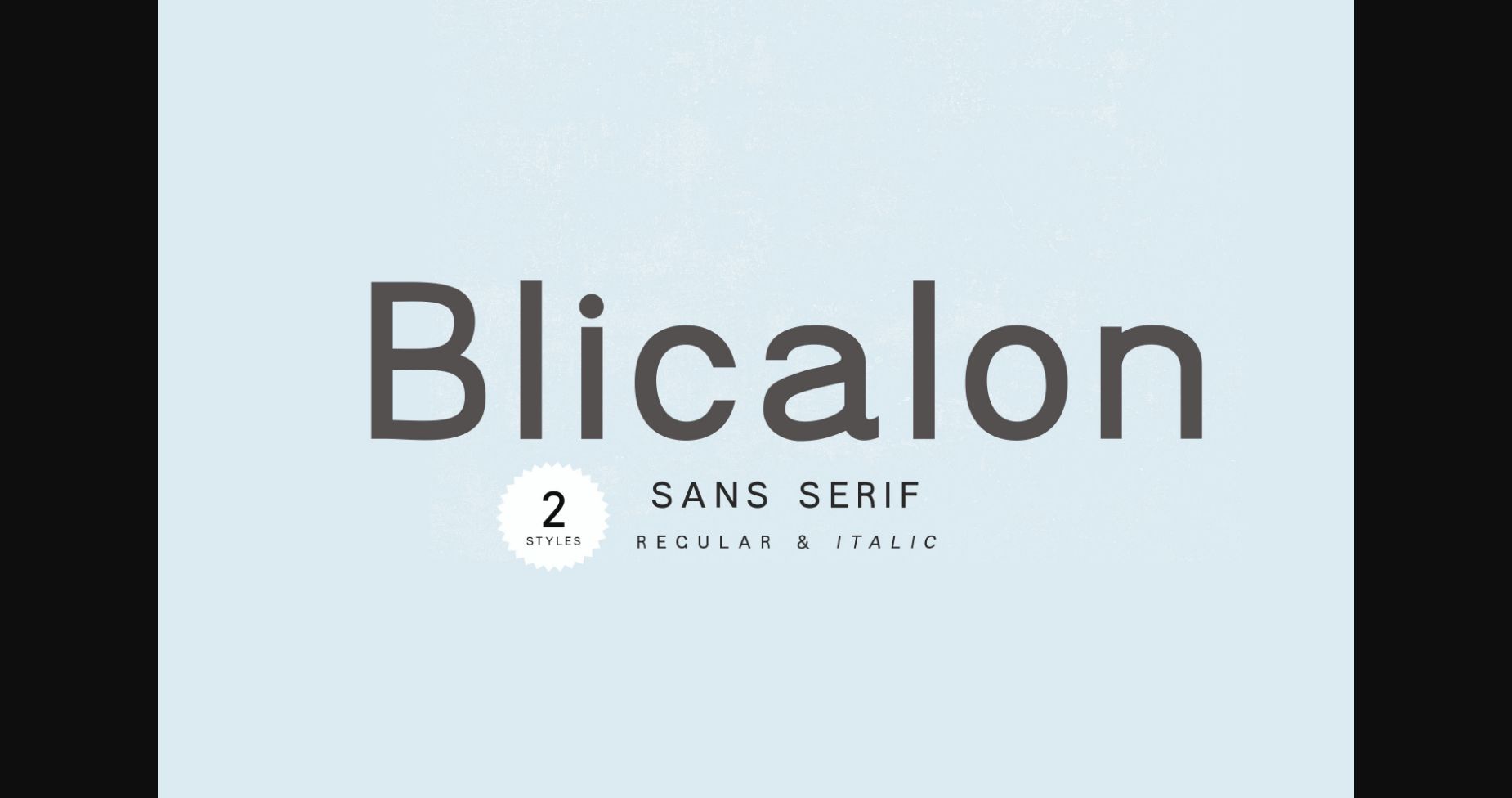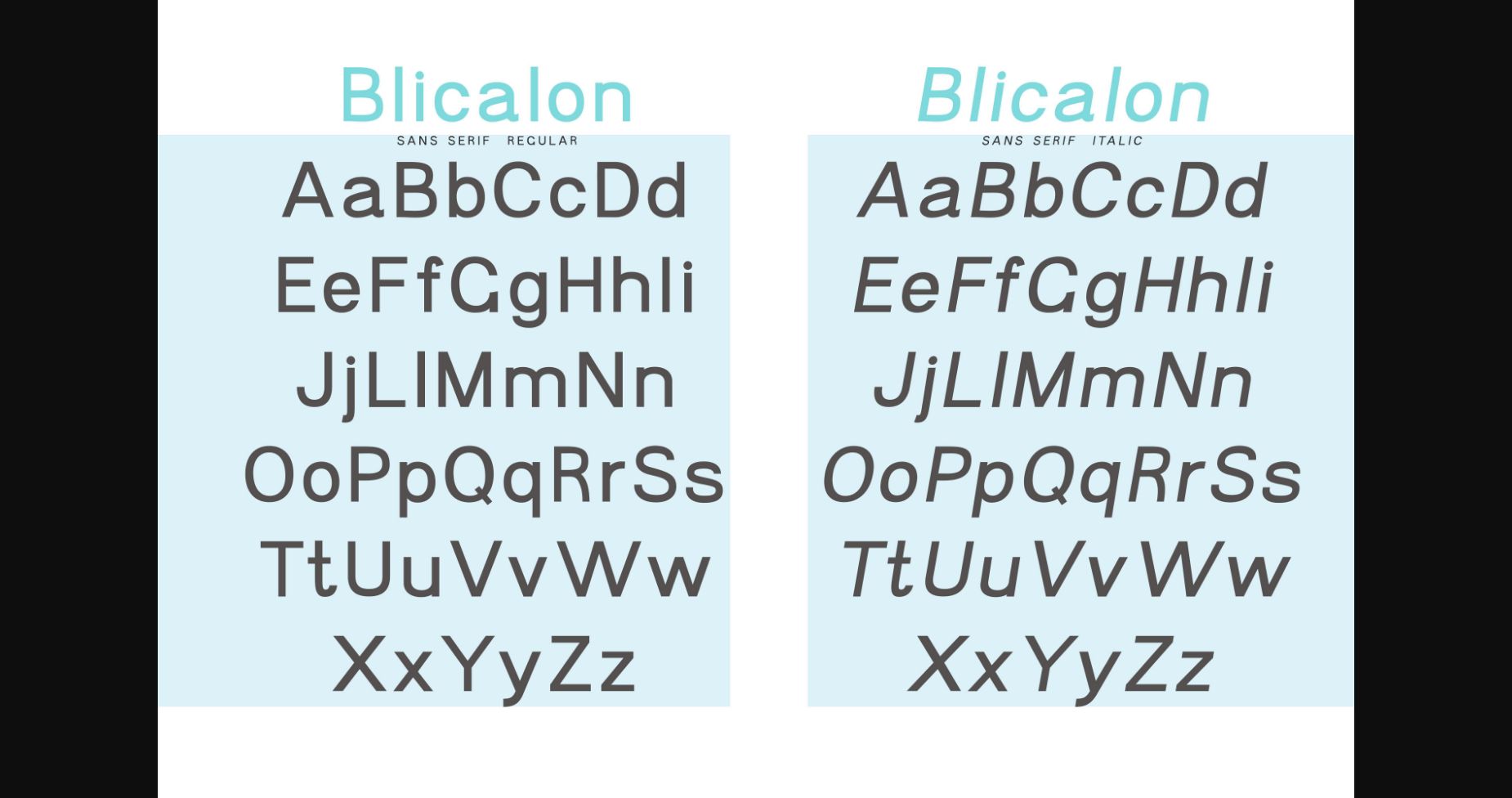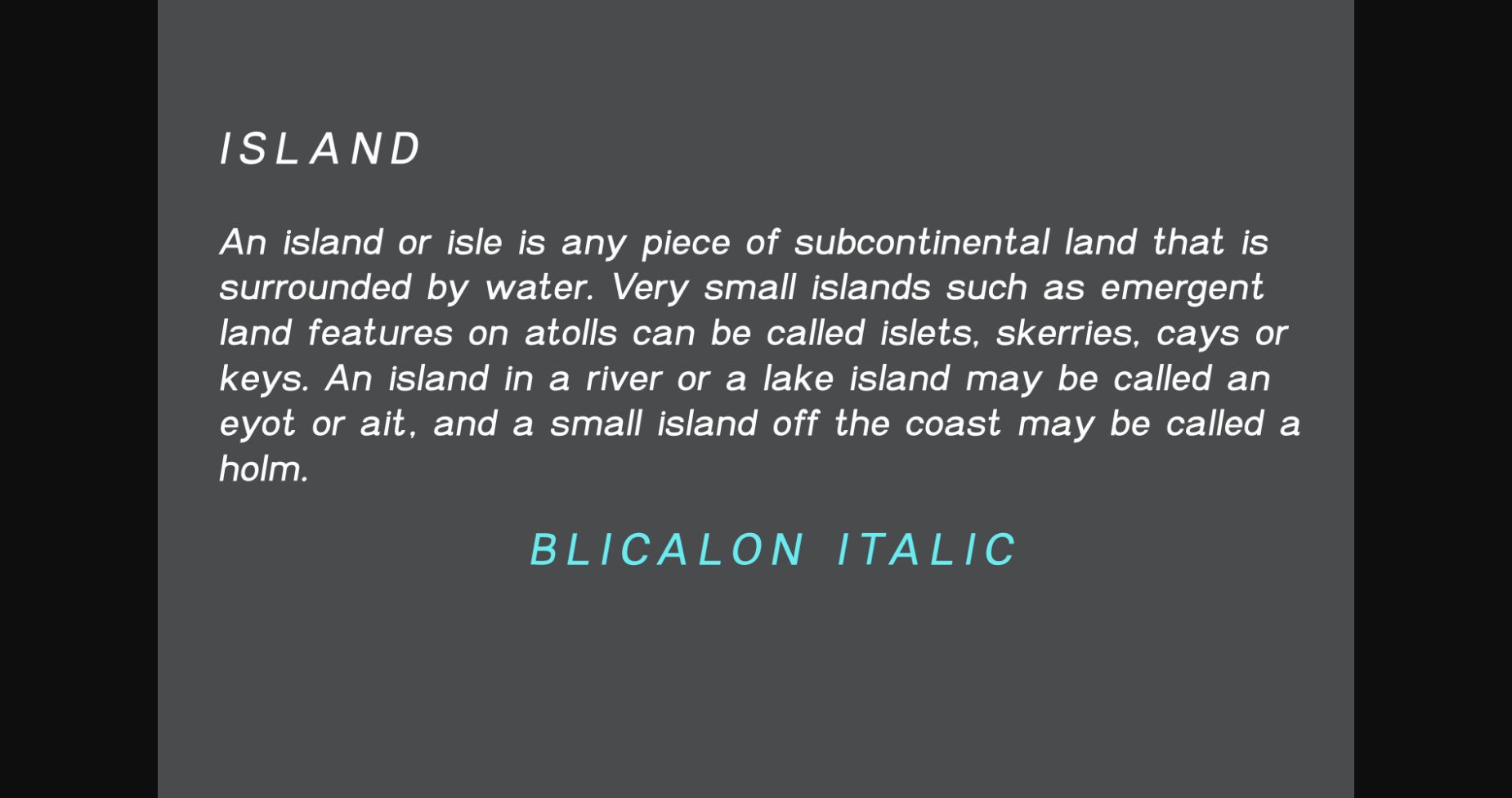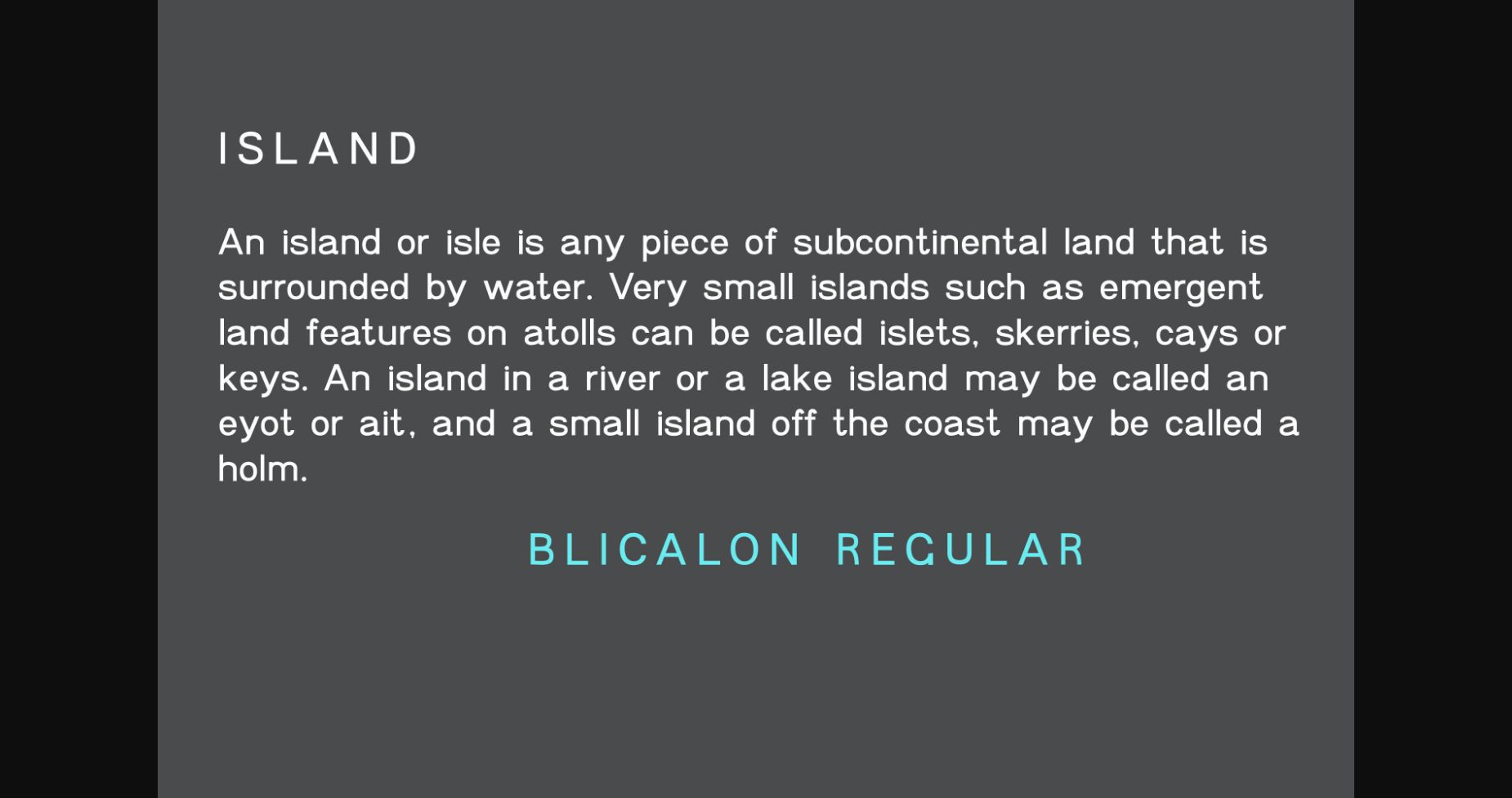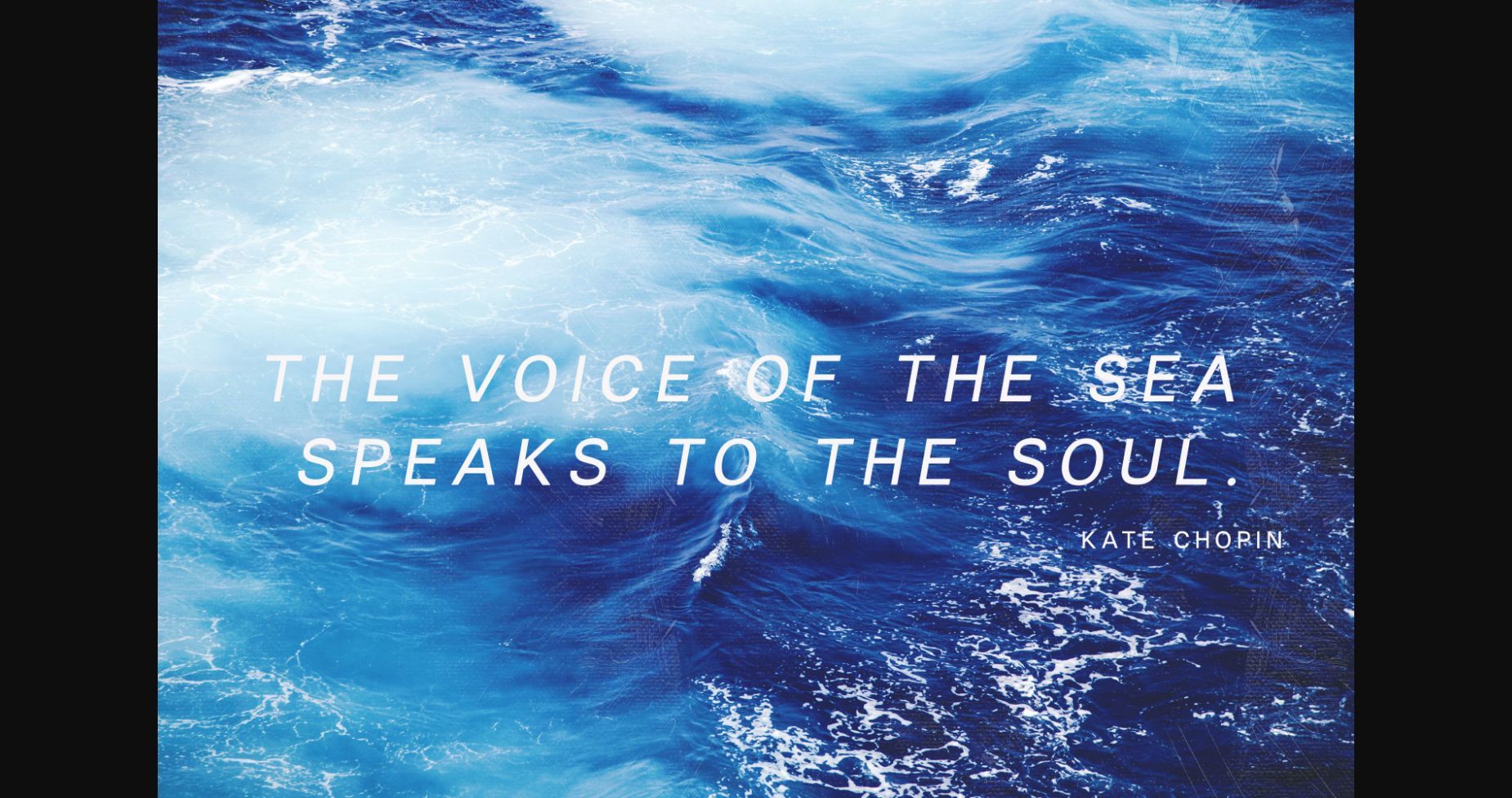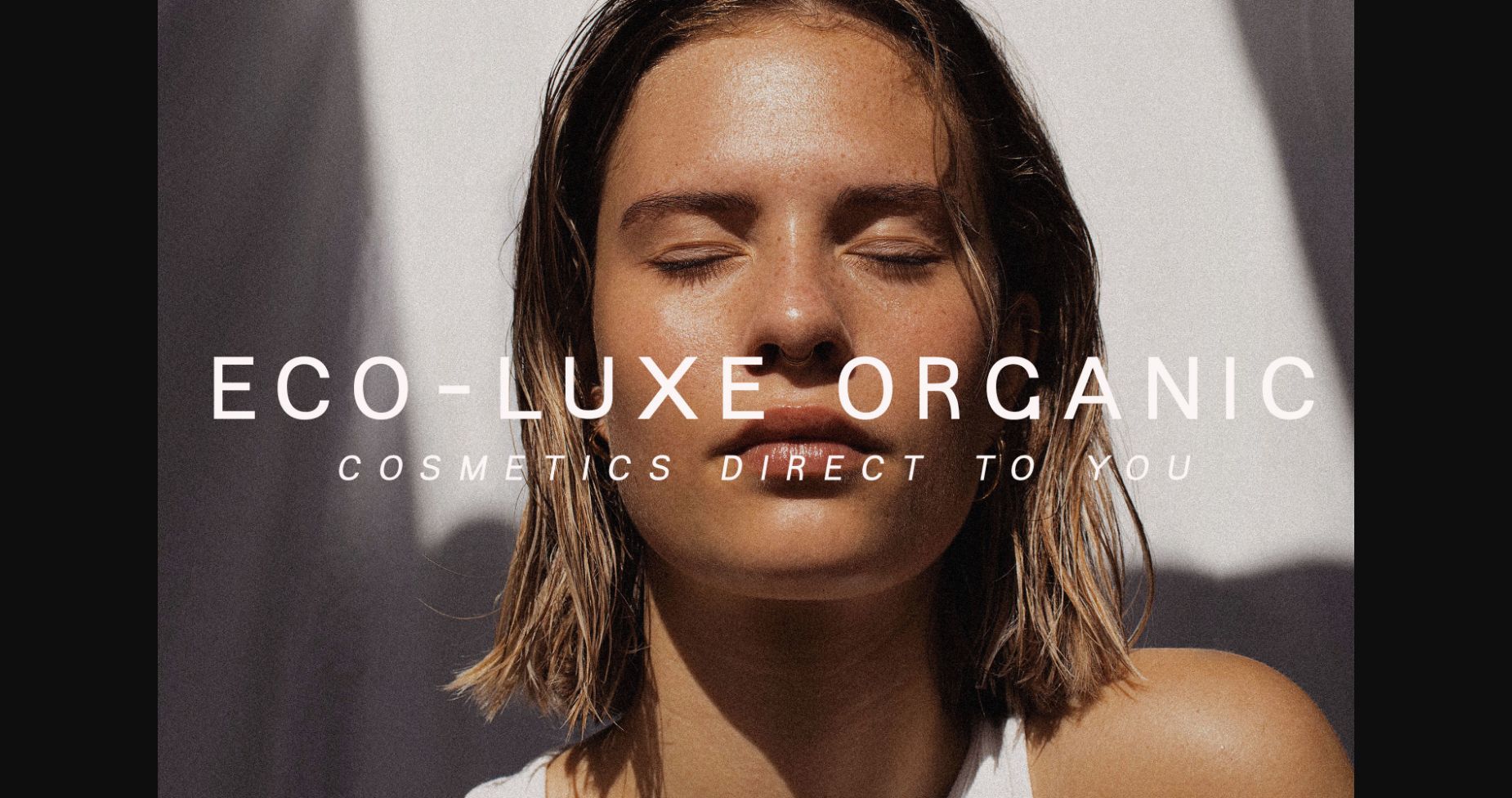
HomeSans Serif FontsBlicalon Font Sans Serif Fonts Blicalon Font FacebookXPinterestWhatsApp 1 of 10 ... Blicalon Font Poster 2... Blicalon Font Poster 3... Blicalon Font Poster 4... Blicalon Font Poster 5... Blicalon Font Poster 6... Blicalon Font Poster 7... Blicalon Font Poster 8... Blicalon Font Poster 9... Blicalon Font Poster 10... About Blicalon Font Blicalon is a minimal and neat sans serif font. It can easily be matched to an incredibly large set of projects, so add it to your creative ideas and notice how it makes them stand out! DOWNLOAD NOW People also explored Seoul Sistar Family Font Lynelle Font Marysville Font Holyday Font Korolev Italic Pro Dirabela Font Font High Five Font Sunflower Font Filmotype Lakeside 331 0 TagsBlicalon Font Previous articleAladin FontNext articleRegon Font LEAVE A REPLY Cancel reply Comment: Please enter your comment! Name:* Please enter your name here Email:* You have entered an incorrect email address! Please enter your email address here Website: Save my name, email, and website in this browser for the next time I comment. Personal Use Free Open Store Personal Use Free Read more about this font Ancient Script Personal Use Free Read more about this font Underwood Champion Personal Use Free Read more about this font Masker Area Personal Use Free Read more about this font BLOG 5 Fonts That Will Dominate Design Trends in 2026 5 Fonts for 2026 That Will Dominate Design Trends Typography plays a critical role in visual communication, and as we look ahead to 2026, it’s... Top 10 Handwritten Fonts That Elevate Your Designs Fonts That Capture the Spirit of New York City Free Fonts Risk: Why Free Fonts Can Be Dangerous for Designers